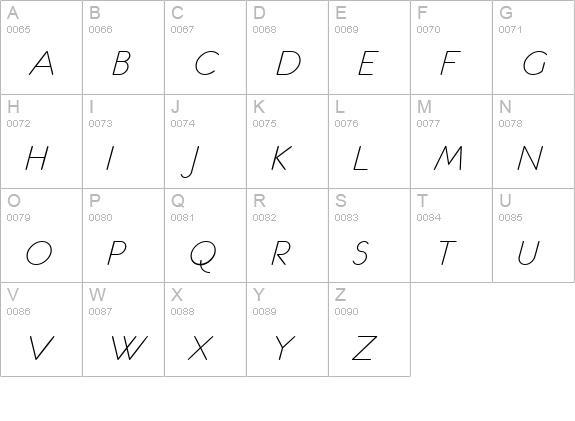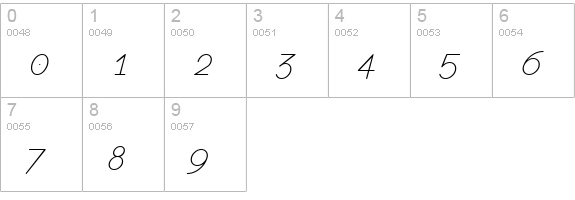
eurofurence light italic Font Details
eurofurence light italic is a refined, elegant, italic variant in the eurofurence typeface family \xE2\x80\x94 well suited to elegant body text, refined sub-headings, and luxury branding.
Eurofurence Light Italic font is a sleek and modern typeface that exudes elegance and sophistication. With its delicately slanted italics, this font brings a touch of class to any design project. The clean lines and soft curves of Eurofurence Light Italic make it perfect for adding a refined touch to logos, headings, and other text elements. And the best part? Eurofurence Light Italic is completely free to download at FontsMarket.com! You can easily enhance your designs with this stylish font without breaking the bank. Whether you're working on a website, a poster, or a branding project, Eurofurence Light Italic is sure to elevate your design to the next level. Don't miss out on this fantastic opportunity to add a touch of sophistication to your projects with Eurofurence Light Italic font. Download it for free today at FontsMarket.com and start creating stunning designs that stand out from the rest.